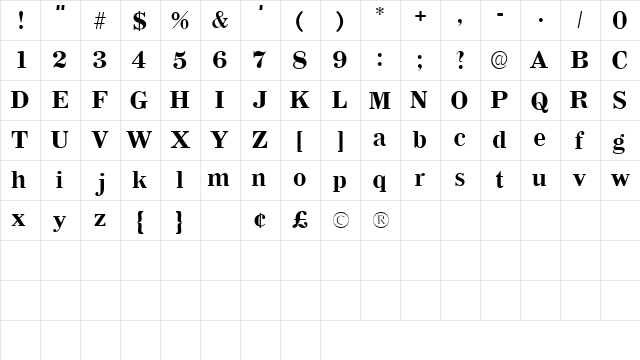
CognitoSSK Regular
Design Context for CognitoSSK Typeface
CognitoSSK is a composed and adaptable typeface that performs quietly and consistently across a wide range of design contexts.